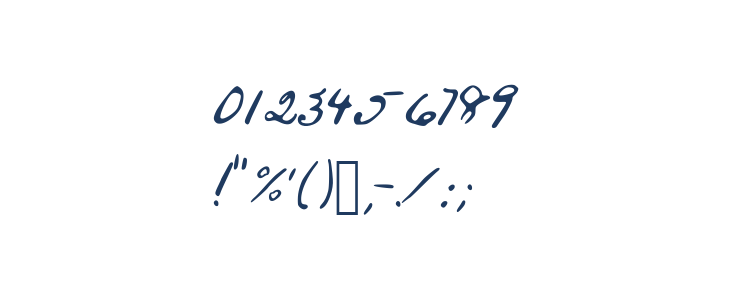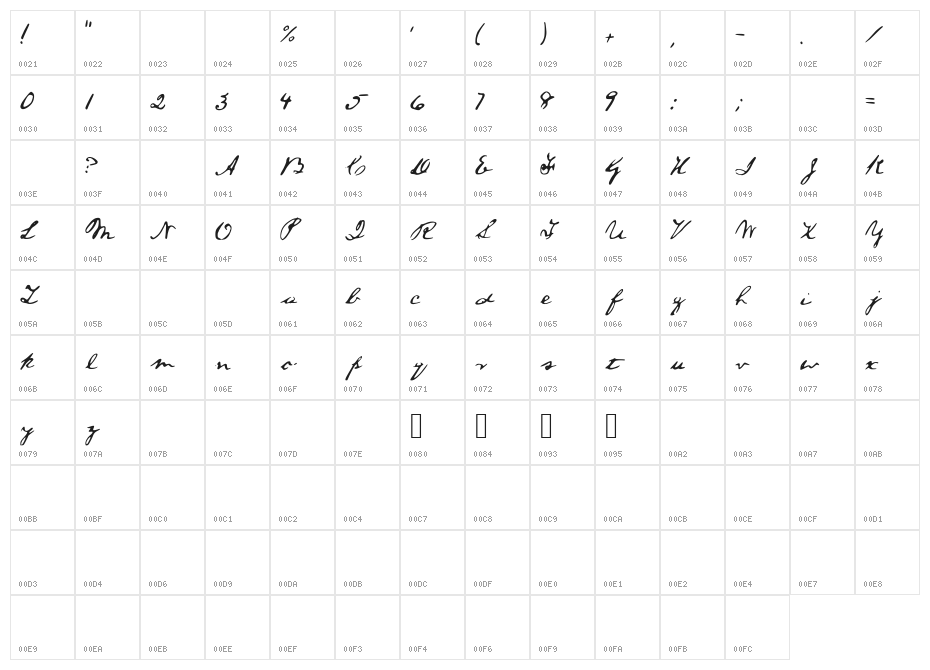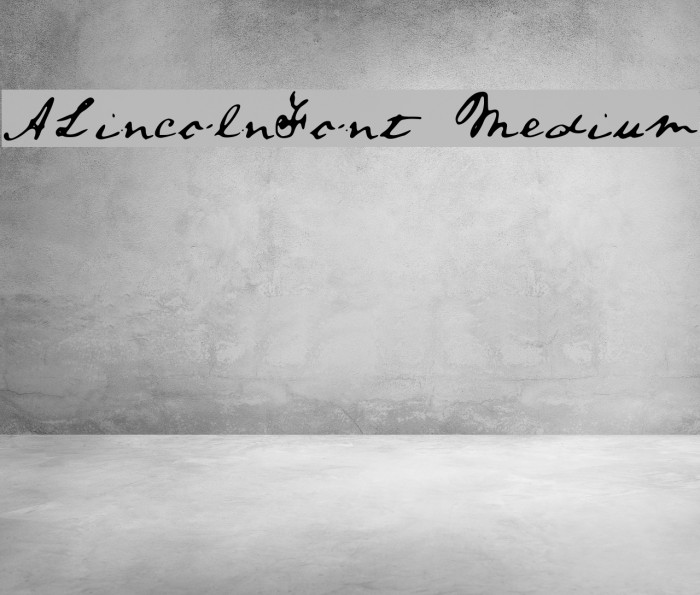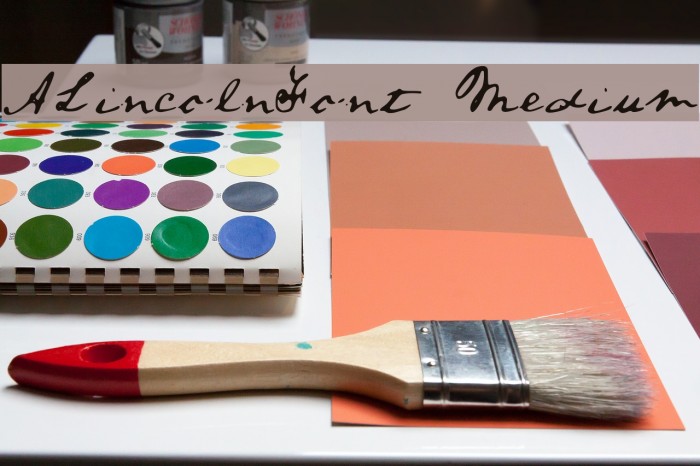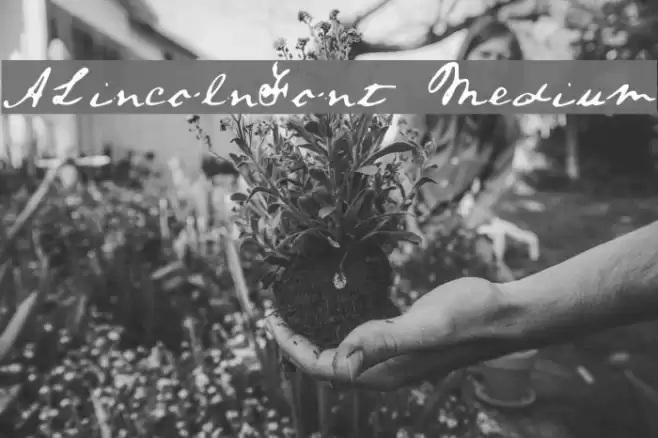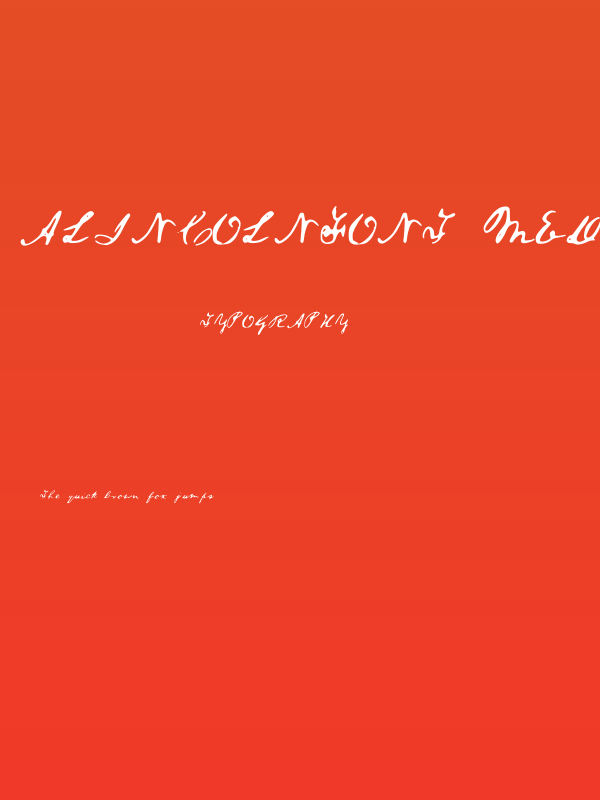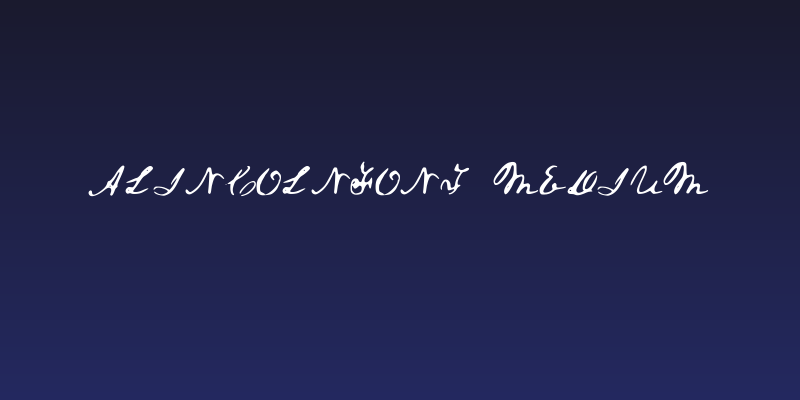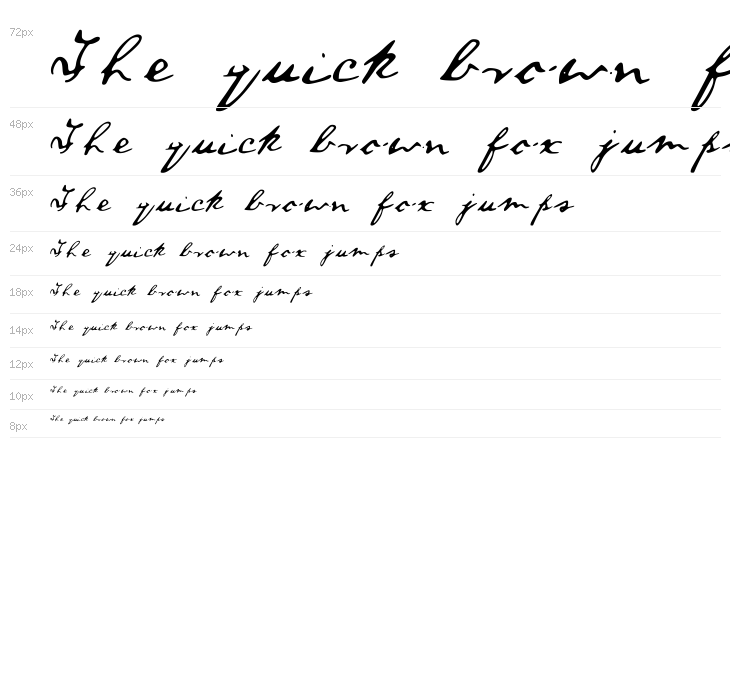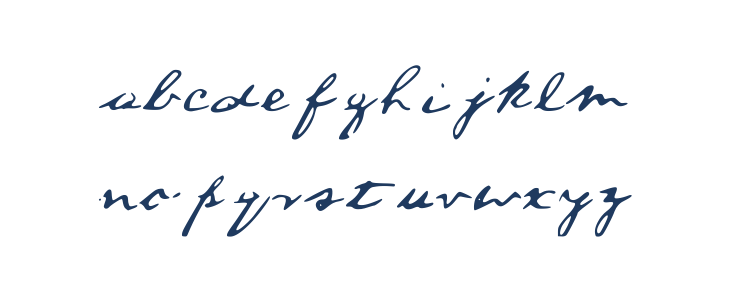
ALincolnFont Medium Font
ALincolnFont Medium Description
This font exudes a classic, handwritten style with a touch of elegance and sophistication. The characters are fluid and connected, reminiscent of traditional cursive handwriting. Each letter has a distinct personality, with varying stroke widths that add a dynamic and lively feel. The uppercase letters are bold and prominent, while the lowercase letters maintain a graceful flow. Numbers and special characters are crafted with the same attention to detail, ensuring consistency throughout. The overall appearance is both artistic and legible, making it suitable for various creative applications.
| Proposed Projects | Ideal for wedding invitations, personal letters, branding, and artistic projects that require a personal touch. |